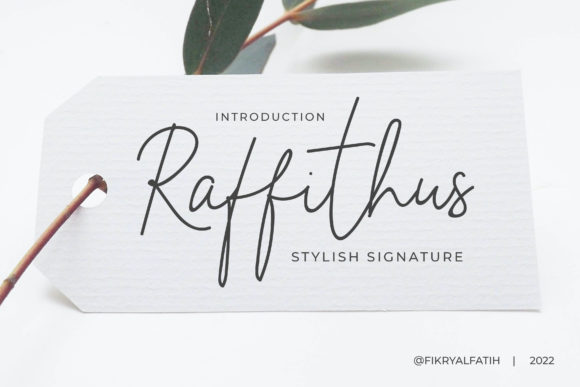
Unleash the charm and playfulness in your designs with Raffithus Font, a captivating script typeface that exudes elegance and whimsy. Each letter dances across the page like a handwritten note, carrying a touch of warmth and joy.
Picture the joy of sending invitations to your little ones' special day, adorned with the whimsical curves of Raffithus. It transforms simple words into heartfelt messages, creating cherished keepsakes for years to come.
Beyond invitations, Raffithus adds a touch of magic to any project. Let your imagination soar as you craft enchanting posters, greeting cards, or packaging designs. Its versatility knows no bounds, making it the perfect choice for any occasion that calls for a touch of whimsy and wonder.
With Raffithus Font, your designs will captivate the hearts of all who behold them. Embrace the joy, romance, and endless possibilities that await you within its enchanting curves.